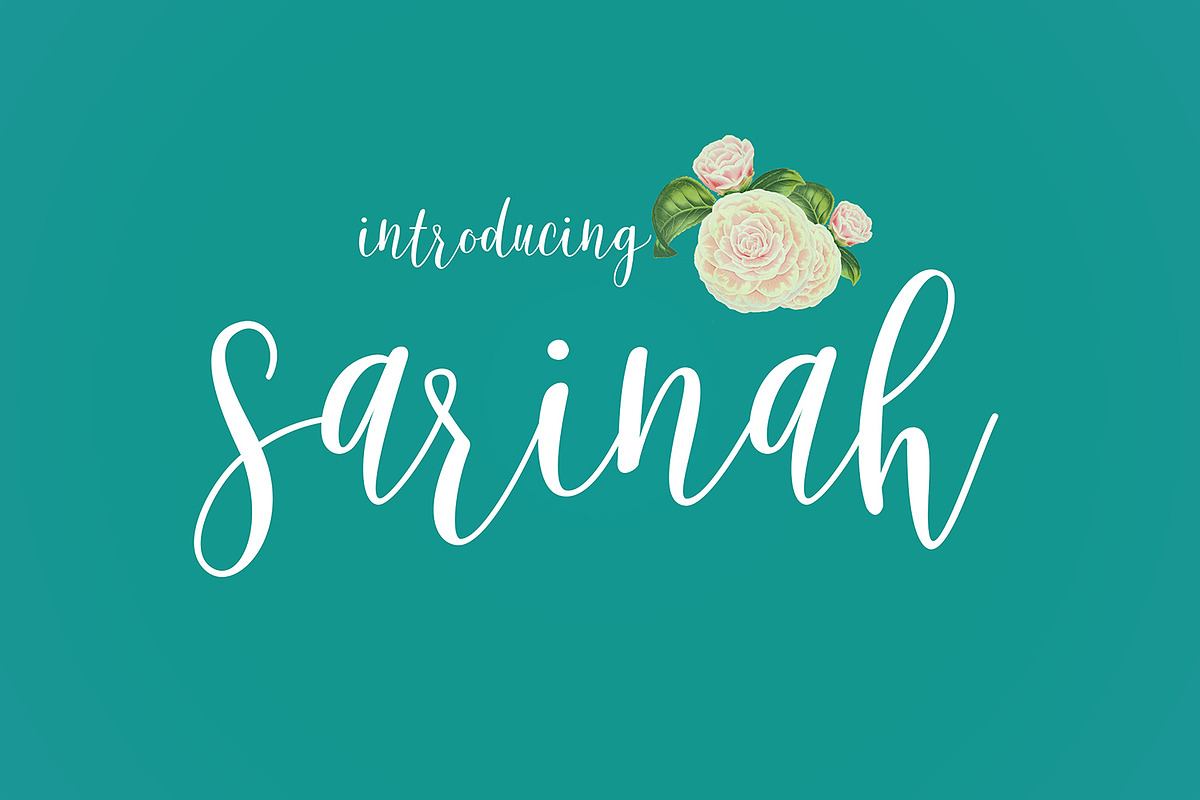
Sarinah Font Free Download is an elegant, modern script typeface that blends beautiful curves with clean lines, offering a sophisticated and refined feel. Ideal for creating elegant invitations, branding, logos, greeting cards, and stylish social media posts, this font adds a luxurious touch to any project.
Sarinah's flowing, smooth letterforms make it perfect for upscale designs that require a personal yet professional look. Its versatility makes it suitable for both large display text and smaller details, bringing grace to your typography.